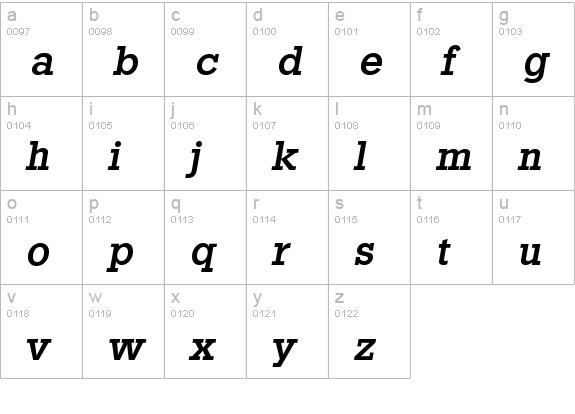
Stafford-MediumIta Font Details
Stafford-MediumIta is a sophisticated and elegant font that exudes a sense of timeless beauty. With its medium weight and stylish italic design, it adds a touch of class to any project or design. This font is perfect for creating professional and eye-catching designs, whether it be for branding, advertising, invitations, or any other creative endeavor. Its versatility allows it to adapt to various design styles and purposes, making it a valuable asset for designers and creatives alike. The smooth and flowing curves of Stafford-MediumIta give it a graceful and refined appearance, making it ideal for conveying a sense of sophistication and luxury. Each letter is meticulously crafted to ensure legibility and readability, even at smaller sizes. What makes Stafford-MediumIta even more appealing is that it is freely available to download at FontsMarket.com. This means that you can access this beautiful font without any cost, making it a fantastic option for those on a budget or anyone looking for high-quality fonts at no expense. Whether you are a seasoned designer or just starting out, Stafford-MediumIta is a font that will elevate your designs and leave a lasting impression. Its timeless style and availability make it a must-have addition to any font collection. So why wait? Download Stafford-MediumIta for free at FontsMarket.com and unlock the potential to create stunning designs that captivate and inspire.